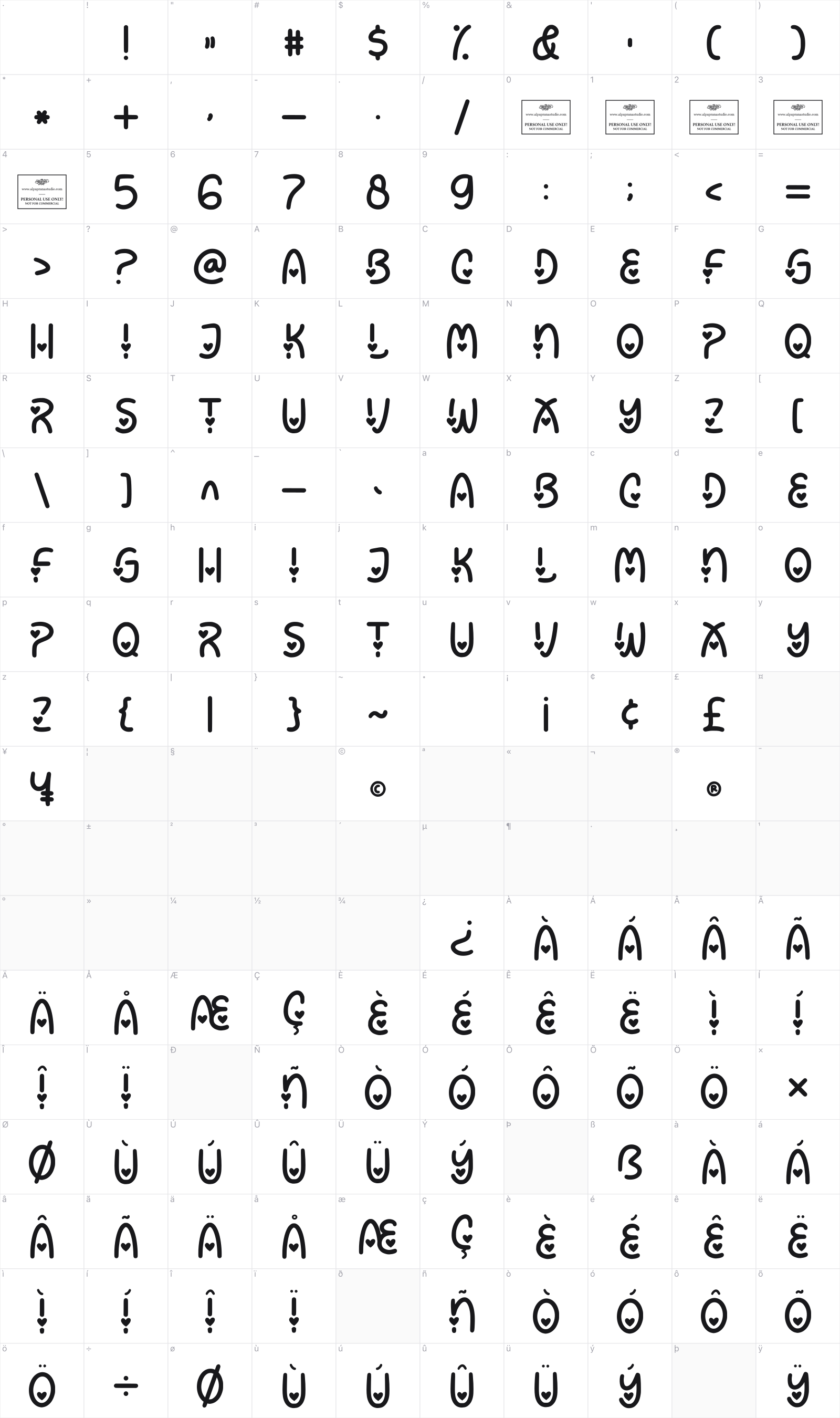
Wondrous
Wondrous is a bold rounded display font with small heart shapes cut into the strokes of every letter. The hearts are structural to the design, not ornamental afterthoughts, giving the whole typeface a cohesive romance theme. It reads clearly at large sizes while carrying a distinctly cute, kawaii-inflected personality.